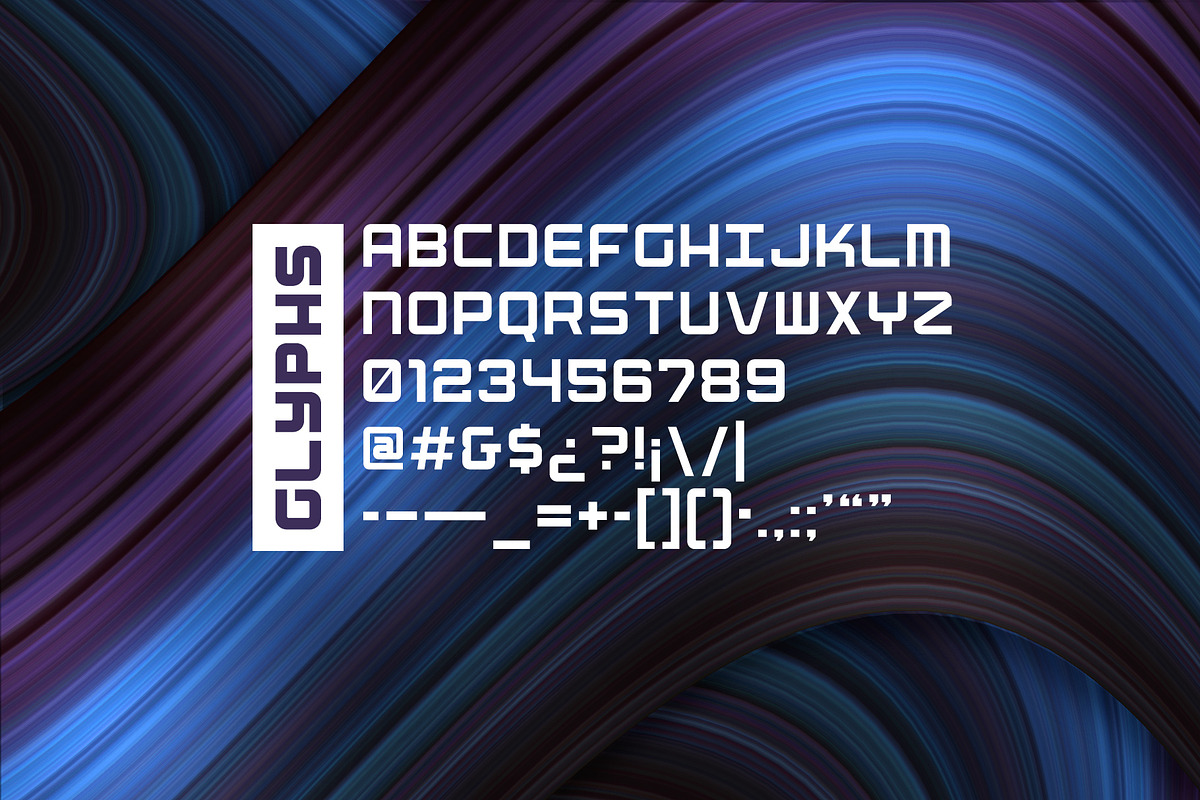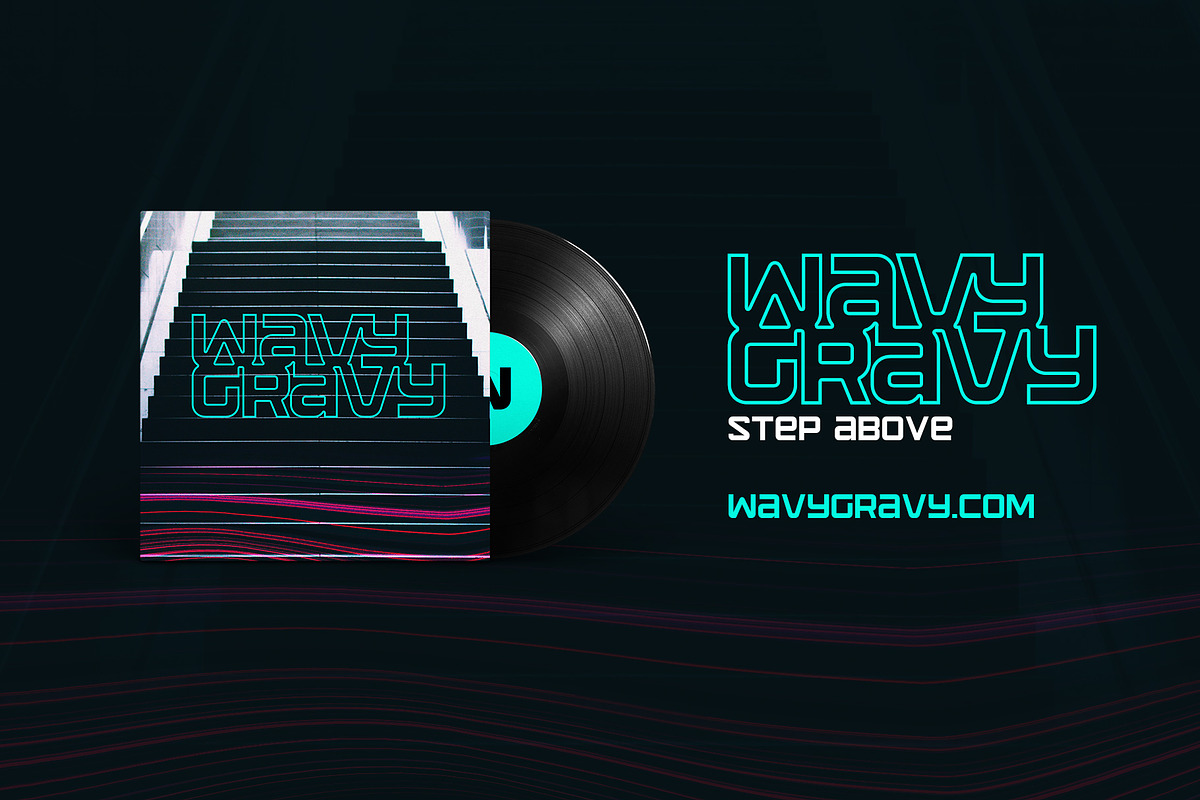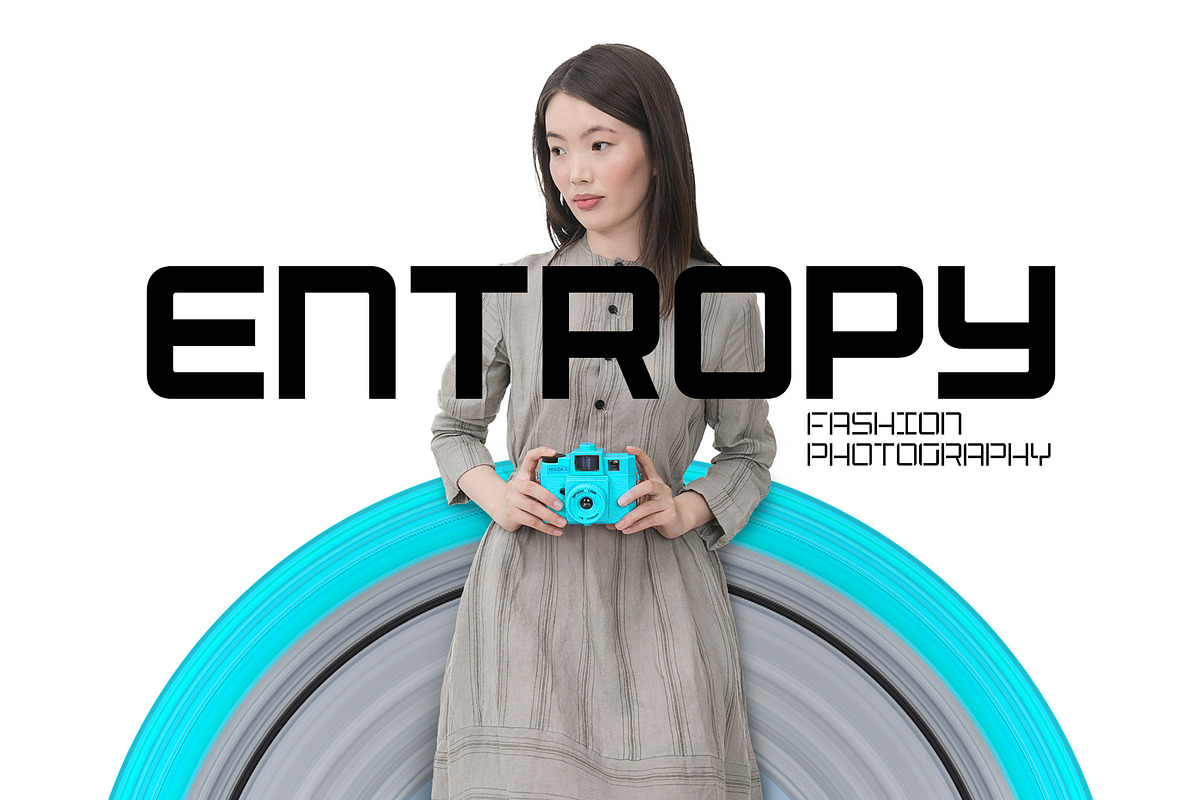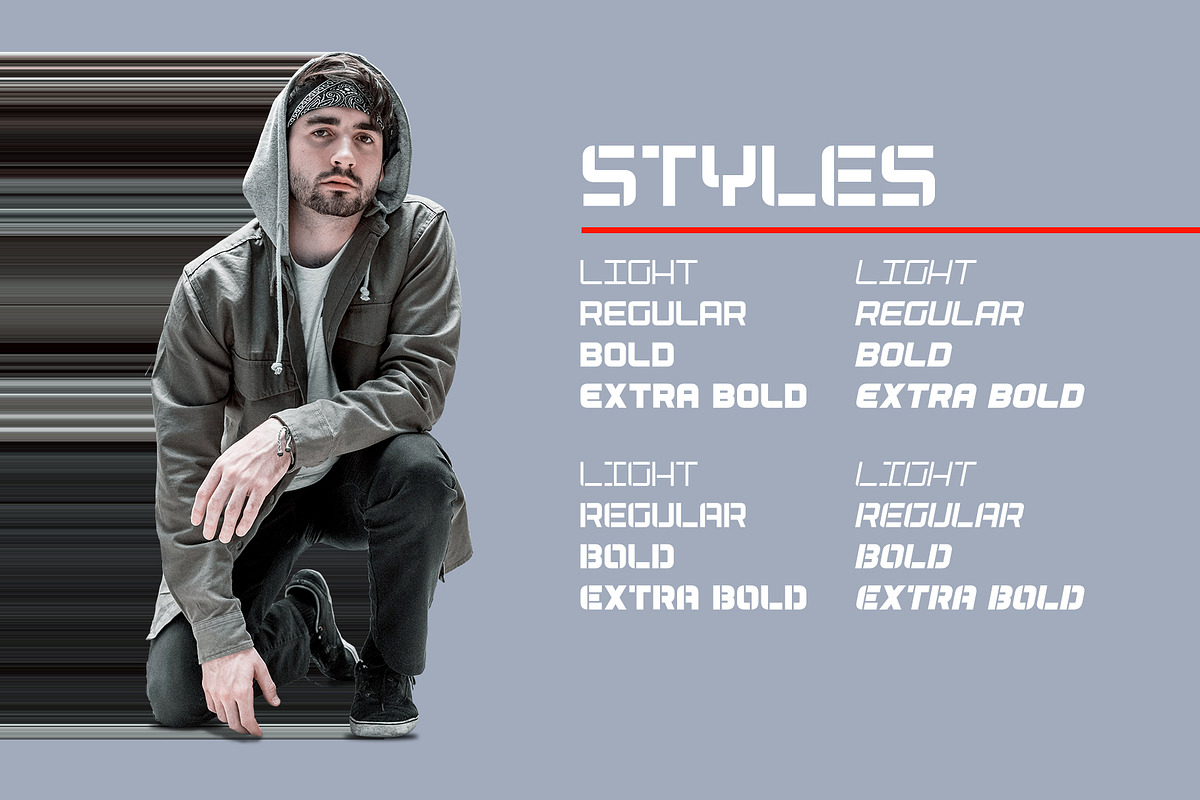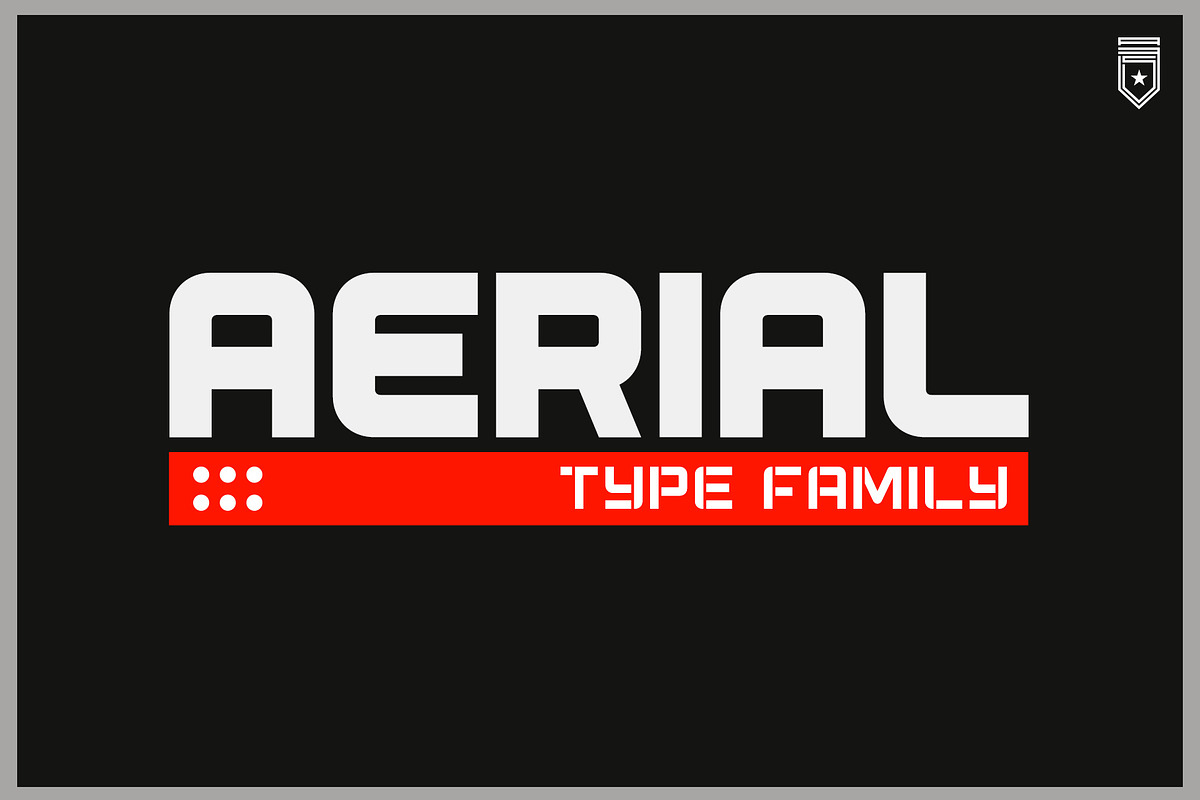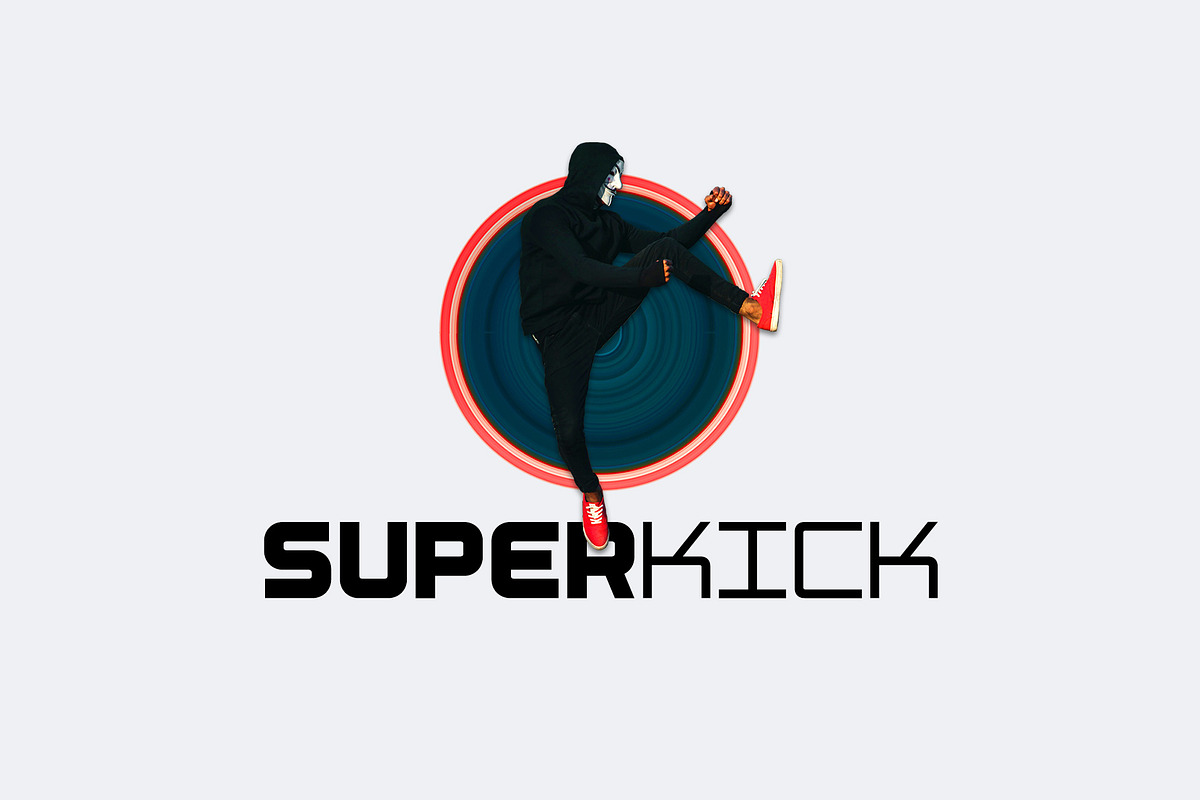
Aerial Type Family
AERIAL is a rounded, geometric type family developed to support designers in many industries such as the editorial, fashion, entertainment, tech, gaming, esports, advertising and internet industries.
AERIAL's rounded, bold lines mean form meets function, which mean it's perfect for a myriad of projects from branding to fashion. Inspired by club flyers and modern architecture, AERIAL is a great addition to your arsenal of fonts.
From its humble beginnings of 2 OTF files, AERIAL now delivers a vastly improved and fully formed family. AERIAL offers many new features, which include:
- Open-type features, mainly Alternate Glyphs
- 4 weights and 4 stencil styles along with their matching italics (16 total fonts)
- Expanded punctuation
- More precise vector builds